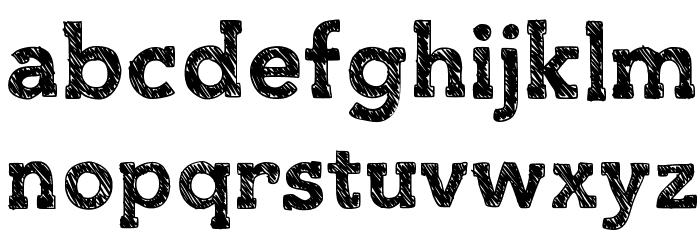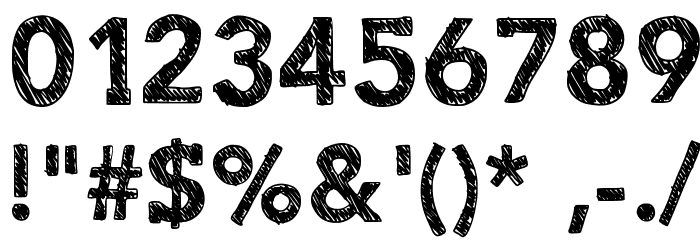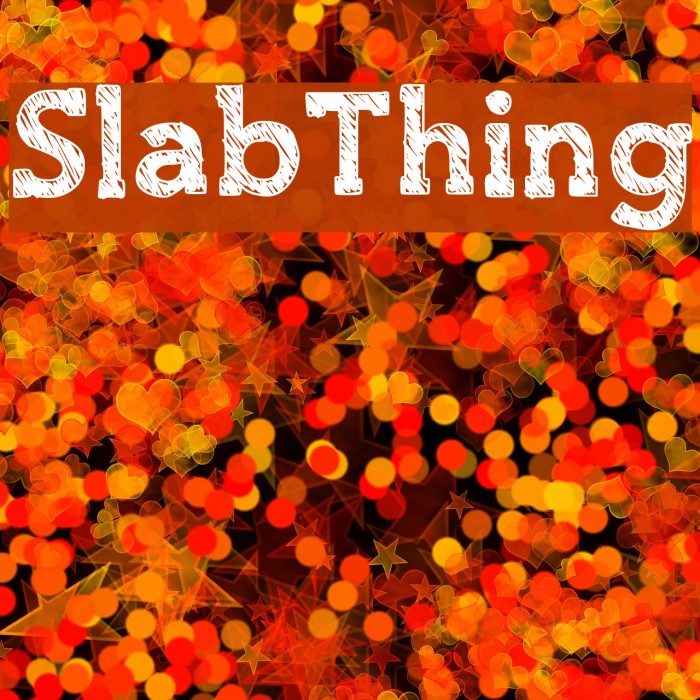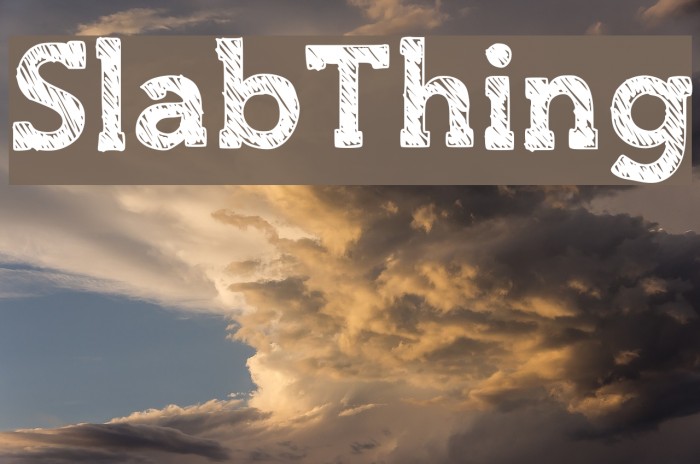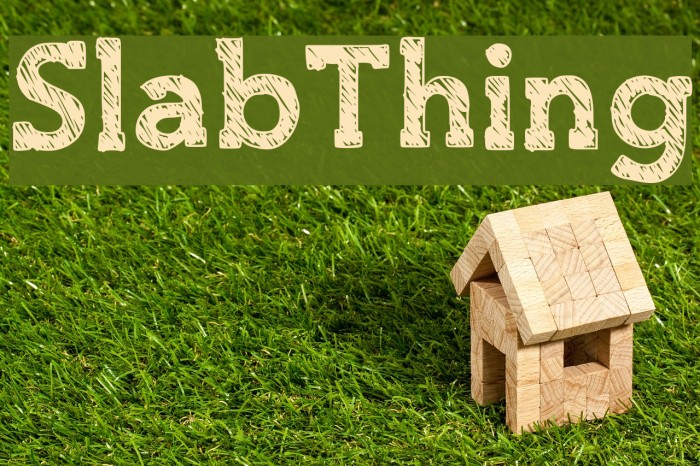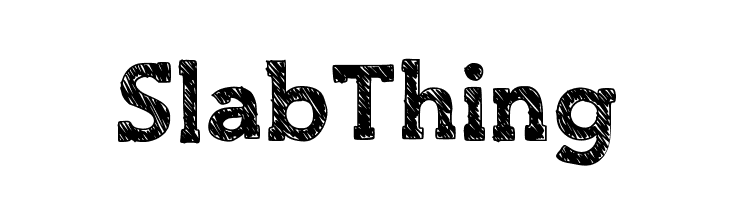
SlabThing Font
This font features a bold, textured style with a hand-drawn appearance, characterized by thick, slab-like serifs and a sketchy fill pattern. The uppercase and lowercase letters maintain a consistent weight, giving it a strong presence. The numerals and special characters follow the same design, ensuring uniformity across all glyphs. Its playful yet robust design makes it suitable for creative and informal applications, while the textured detail adds a unique, artistic flair.
A bold, textured slab serif font with a hand-drawn, sketchy appearance.
- Proposed Projects: Ideal for posters, branding, children's book covers, and creative projects requiring a playful yet strong typeface.